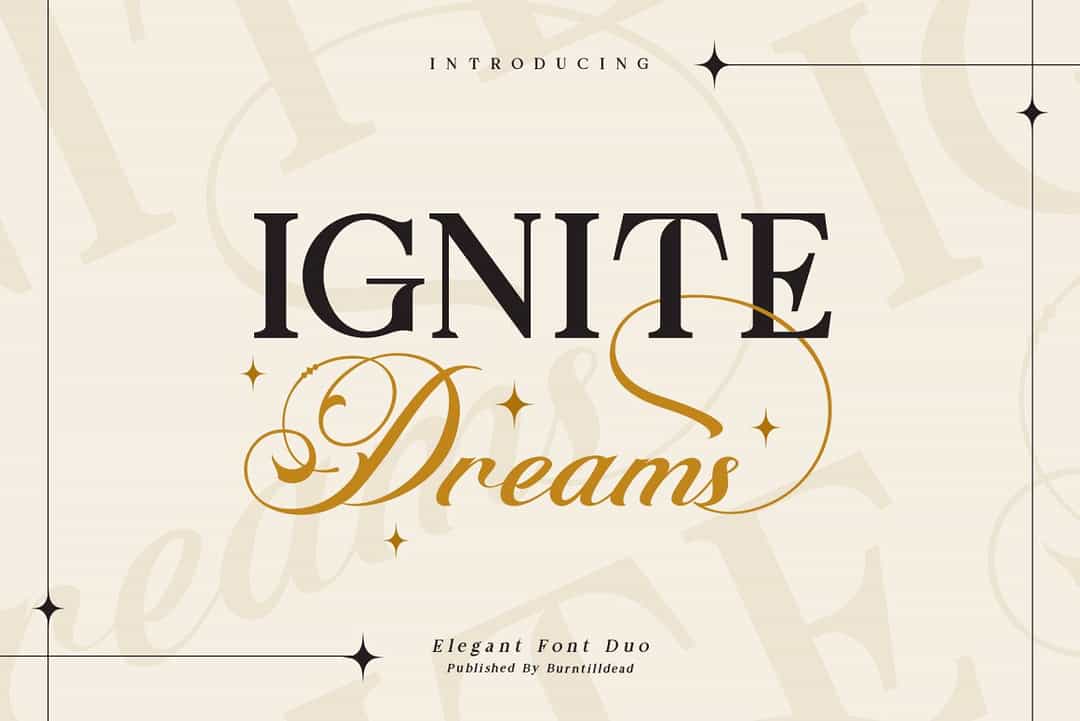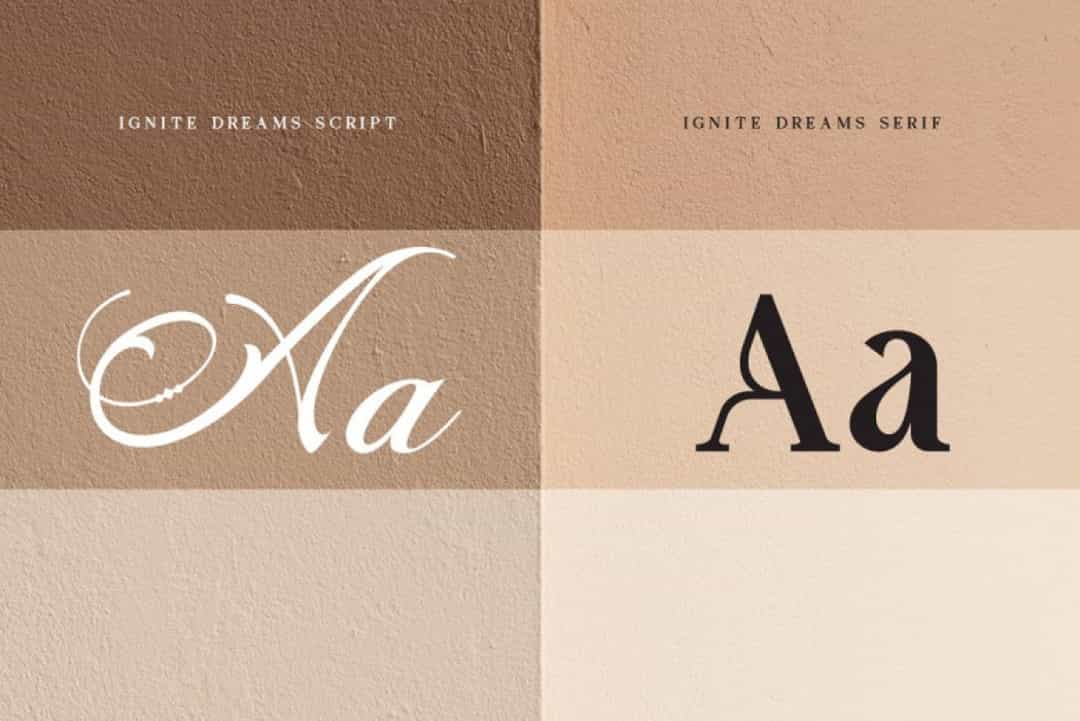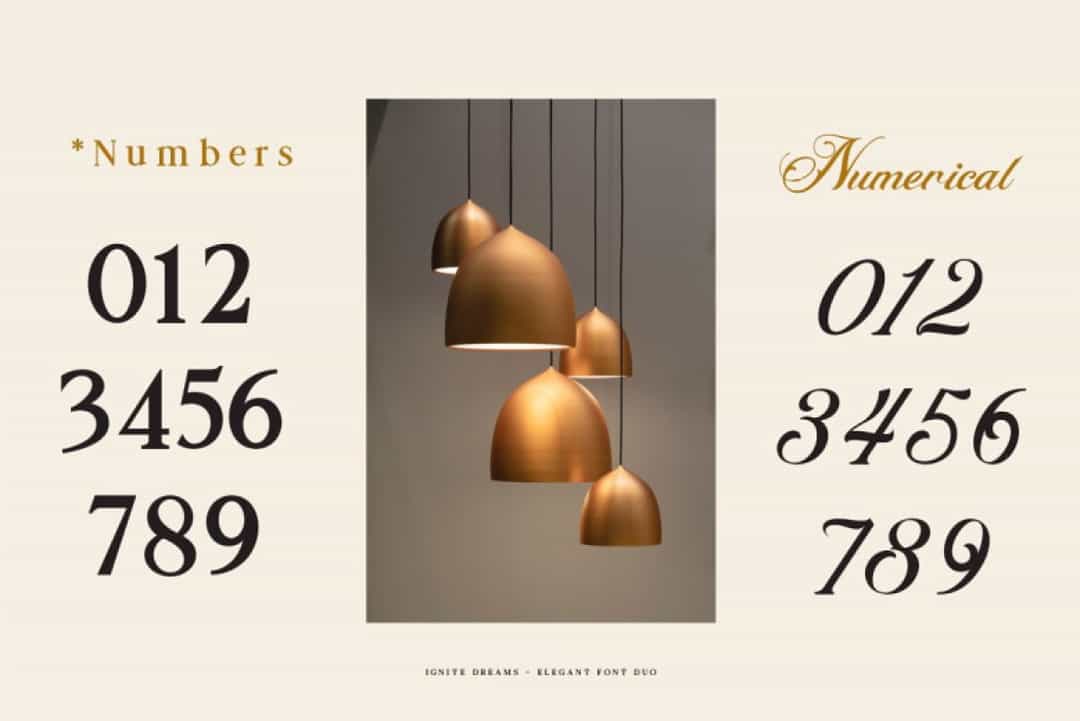
Ignite Dreams Font Duo offers both an elegant serif and script font, perfect for modern, stylish designs such as logos and wedding invitations, branding initiatives, advertisements, social media posts or product concepts. It includes both modern serif font and elegant script font – making them invaluable design resources!